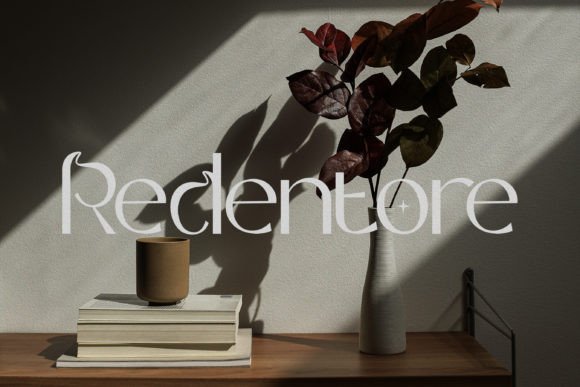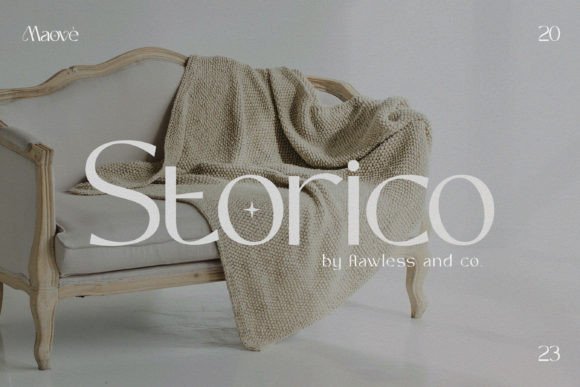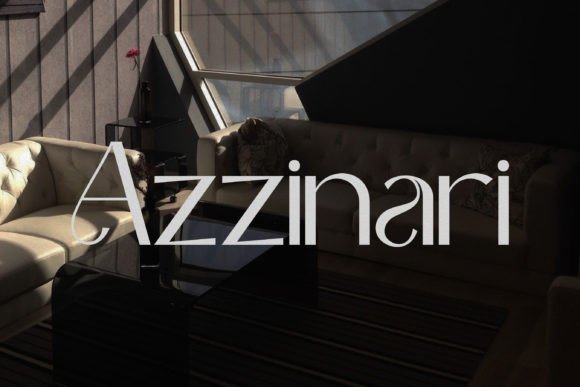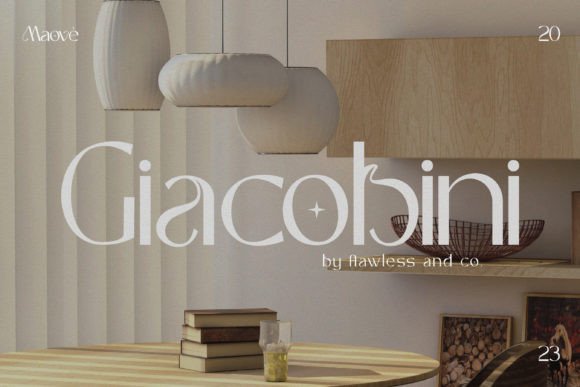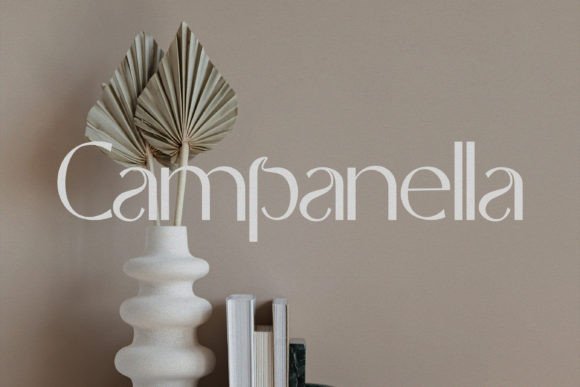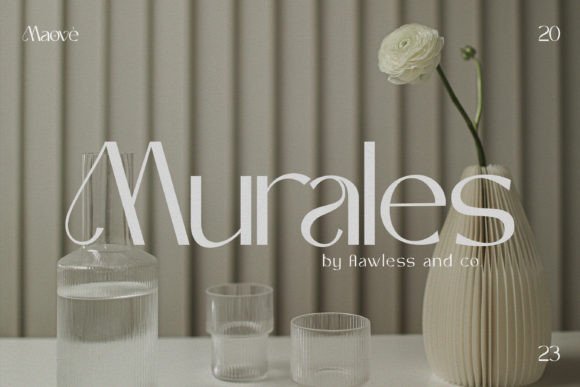
Introduction to Maove Font
Have you ever been working on a creative project, pouring your heart and soul into every detail, only to feel like something is missing – a touch of elegance, a dash of sophistication? That’s where “Maove Font” comes in, a modern sans serif font designed to elevate your design game and bring your vision to life.
As a designer, you know how crucial it is to have the right tools at your disposal. That’s why “Maove Font” is an invaluable resource for any creative project. With its clean lines, refined character, and attention to detail, this font is perfect for designers looking to add a touch of high-quality elegance to their work.
Key Features of Maove Font
- High-quality, vector-based design for a seamless and scalable experience
- Designed with a focus on detail and precision, resulting in a unique and stylish aesthetic
- Perfect for use in creative projects, from graphics and logos to web design and more
Honest Review: Maove Font
I recently came across the Maove Font, and I must say it’s a great addition to any designer’s toolbox. This free download has been a game-changer for my creative project, providing a unique and stylish touch that elevates the overall design.
What works well about the Maove Font is its versatility. With a transparent background, I can easily integrate it into any design without worrying about visual clutter. The high-quality design ensures that the font looks crisp and clear, making it perfect for both digital and print projects.
- ✨ Unique and stylish design that adds a creative touch to any project
- ✨ Transparent background makes it easy to integrate into any design
- ✨ High-quality design ensures crisp and clear text
One limitation of the Maove Font is its limited character set. While it’s perfect for short phrases or headings, it may not be the best choice for longer blocks of text.
Overall, I’m thoroughly impressed with the Maove Font. Its unique design, versatility, and high-quality make it a great addition to any designer’s toolkit. Whether you’re working on a creative project or just need a stylish font for your design, the Maove Font is definitely worth checking out.
Maove Font is ideal for use in creative projects such as logos, business cards, and brochures. Its high-quality design and transparent background make it perfect for use in digital design, such as social media graphics and website headers.